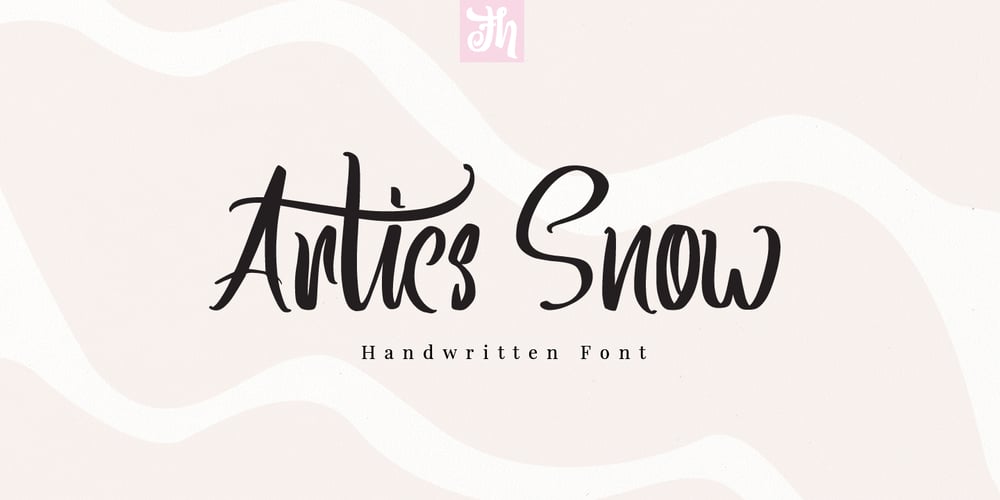
Artics Snow
Artics Snow font
Artics Snow Font Family was designed by Ferry Hadriyan and published by FHFont. Artics Snow contains 1 styles and family package options. Artics Snow is beautiful script font with modern calligraphy style, with many OpenType features. Suitable for design, element design, wedding, event, t-shirt, logo, badges, sticker, and other awesome work.